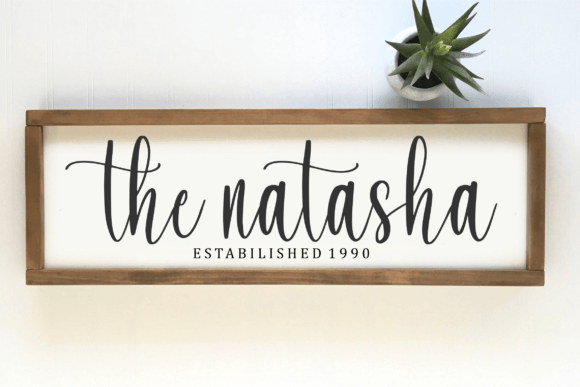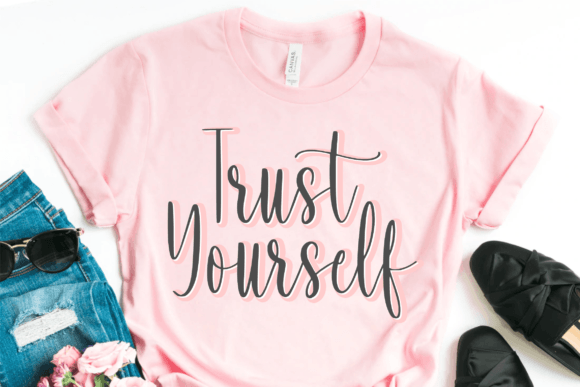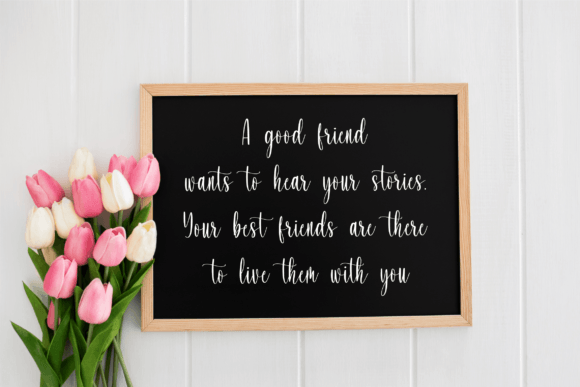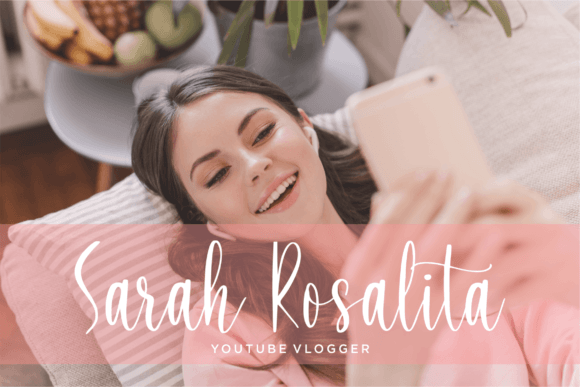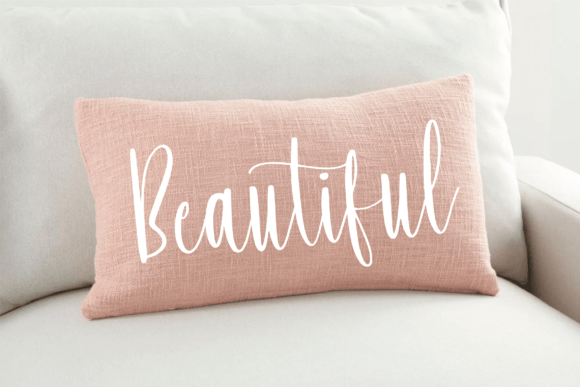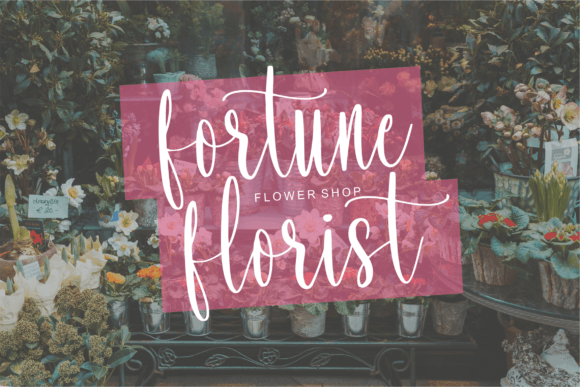
Introducing Heartgrove Font: The Playful Handwritten Font to Elevate Your Designs
Are you looking for a font that can add a touch of playfulness and whimsy to your designs? Look no further than Heartgrove Font! This beautifully crafted display font is designed to bring a sense of handmade charm to any project, making it perfect for designers and crafters alike.
The Playful Personality of Heartgrove Font
Heartgrove Font is a true showstopper, with a playful and energetic personality that shines through in every letter. Its handwritten style is reminiscent of a child’s drawing, full of imperfections and quirks that make it feel truly unique. This font is the perfect way to add a dash of personality to your designs, whether you’re working on a logo, a poster, or a social media graphic.
Endless Design Possibilities with Heartgrove Font
One of the best things about Heartgrove Font is its versatility. Its playful style makes it perfect for a wide range of design projects, from:
- Children’s party invitations and decorations
Wherever you use it, Heartgrove Font is sure to bring a smile to people’s faces and make your designs stand out from the crowd.
The Benefits of Using Heartgrove Font
So why choose Heartgrove Font for your next design project? Here are just a few benefits of using this amazing font:
- Unique and eye-catching: Heartgrove Font is a true showstopper, with a unique and eye-catching style that’s sure to grab people’s attention.
- Playful and whimsical: This font has a playful and whimsical personality that’s perfect for designs that need a touch of fun and personality.
- Easy to read: Despite its playful style, Heartgrove Font is incredibly easy to read, making it perfect for use in a wide range of design projects.
- Highly versatile: This font can be used in a wide range of design projects, from logos and branding materials to posters and social media graphics.
Tips for Using Heartgrove Font
To get the most out of Heartgrove Font, here are a few tips to keep in mind:
- Use it sparingly: While Heartgrove Font is incredibly playful and fun, it can be overwhelming if used too much. Try using it as a headline or title font, and pairing it with a simpler font for body text.
- Experiment with colors: Heartgrove Font looks amazing in a wide range of colors, so don’t be afraid to experiment and find the perfect hue for your design.
- Pair it with other fonts: Heartgrove Font pairs perfectly with a wide range of other fonts, so try experimenting with different combinations to find the perfect look for your design.
In conclusion, Heartgrove Font is an amazing display font that’s perfect for designers and crafters who want to add a touch of playfulness and whimsy to their designs. With its unique and eye-catching style, highly versatile design, and endless possibilities for use, this font is sure to become a true favorite in your design toolkit. So why wait? Download Heartgrove Font today and start elevating your designs to the next level!